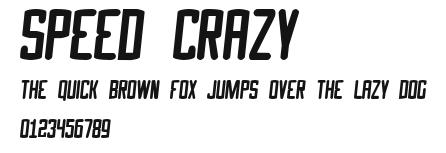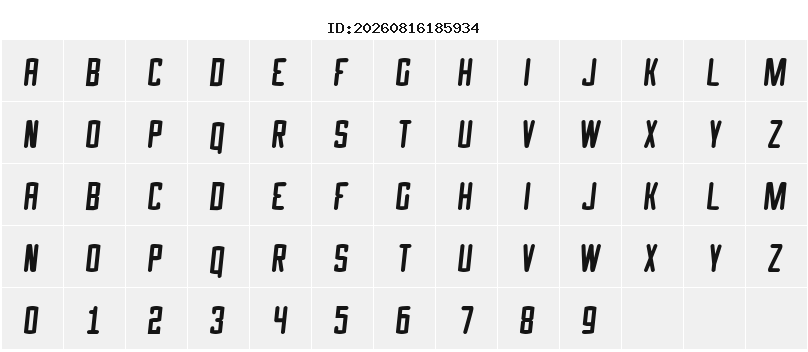
• Font Name: Speed Crazy
About Speed Crazy.ttf
Speed Crazy.ttf is a modern, elegant sans-serif font designed for ultimate readability and visual harmony. Perfect for branding, headlines, web design, and print materials.